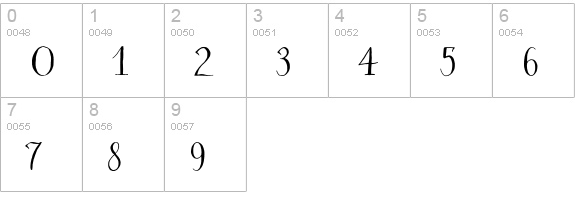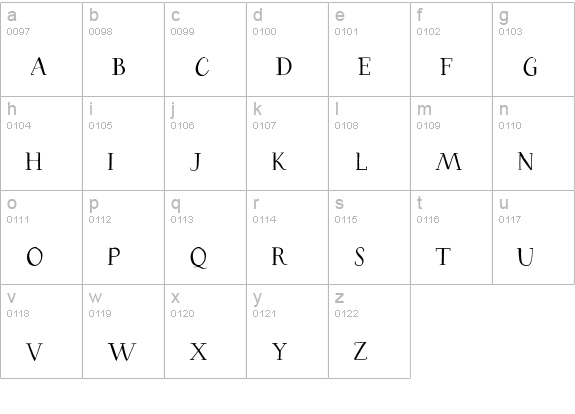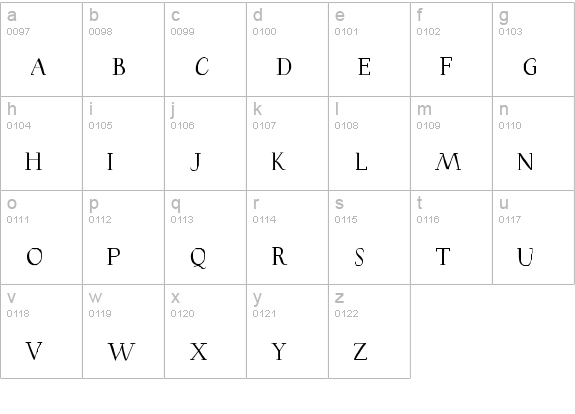
Salt & Spices Pro SC Serif Font Details
Introducing Salt & Spices Pro SC Serif font, a versatile and elegant typeface that combines traditional serif elements with a modern twist. This font exudes sophistication and charm, making it perfect for a wide range of design projects. With its clean lines and sharp edges, Salt & Spices Pro SC Serif font commands attention and adds a touch of refinement to any text. Whether you're designing a logo, creating a brochure, or crafting a website, this font will elevate your work to new heights. What's even better is that Salt & Spices Pro SC Serif font is completely free to download at FontsMarket.com. Yes, you read that right - you can access this stunning font at no cost, making it accessible to designers of all levels. Don't miss out on this opportunity to enhance your projects with the beauty and sophistication of Salt & Spices Pro SC Serif font. Download it today and let your creativity shine!